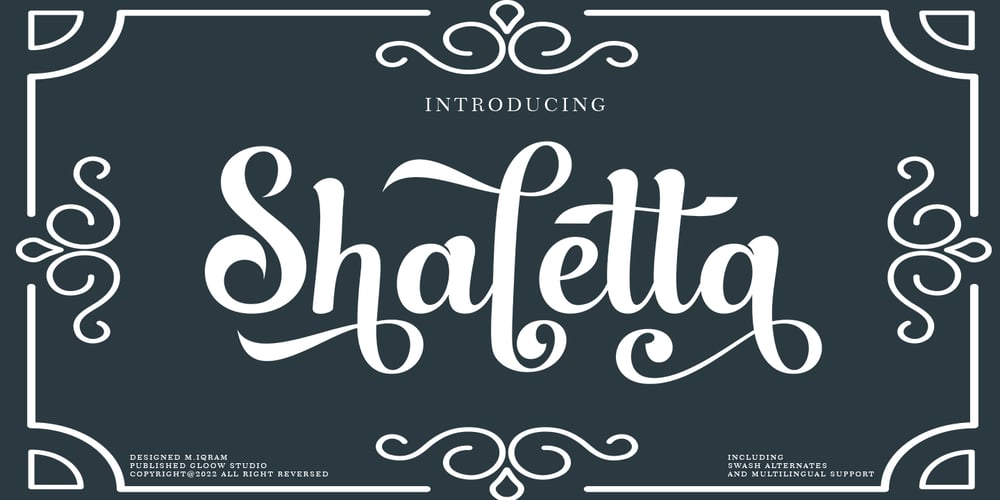
Shaletta
Shaletta font
Shaletta Font Family was designed by Muhammad Iqram and published by Gloow Studio. Shaletta contains 1 styles and family package options. We introduce our new product called Shaletta Font. Shaletta Font is a bold script font which has two styles, Clean and Textured. With those kind of styles, Shaletta Font will looks more vintage and classic.Shaletta Font is great for Logotype, Branding Design, Logo Design, Digital Lettering Arts, T-Shirt/Apparel, Poster, Magazine, Signs, Advertising Design, and any vintage design needs.What you get:Shaletta.otfShaletta includes capital and lowercase letters, Alternates, and LigaturesNumbers + punctuationForeign language supportI highly recommend using a program that supports OpenType features and Glyphs panels such as Adobe Illustrator, Adobe Photoshop CC, Adobe InDesign, or CorelDraw, so you can see and access all Glyph variations.This font is encoded with Unicode PUA, which allows full access to all additional characters without having special design software. Mac users can use Font Book, and Windows users can use Character Map to view and copy one of the extra characters to paste into your favorite text editor/application.Thanks for purchasing and have fun!